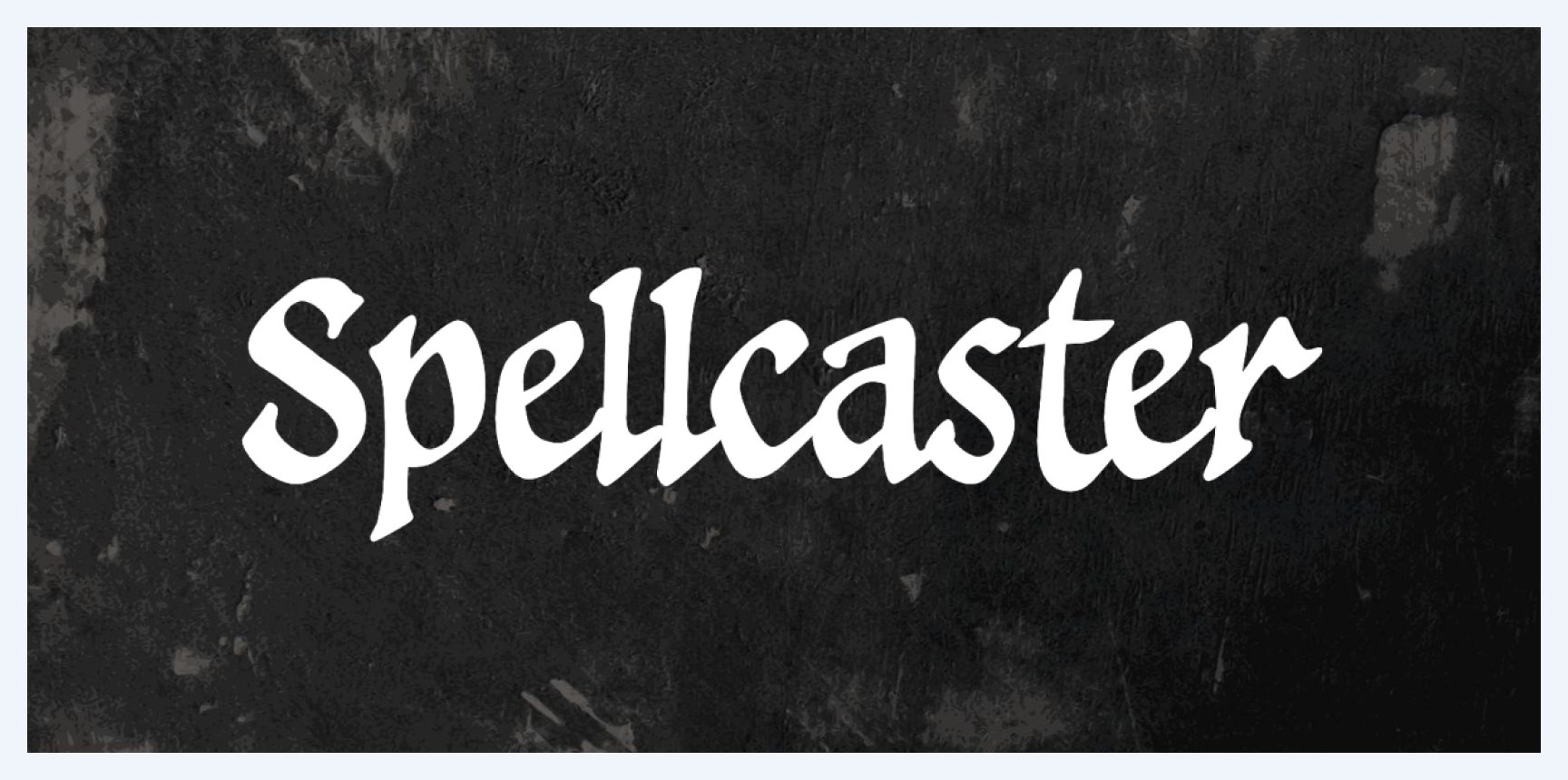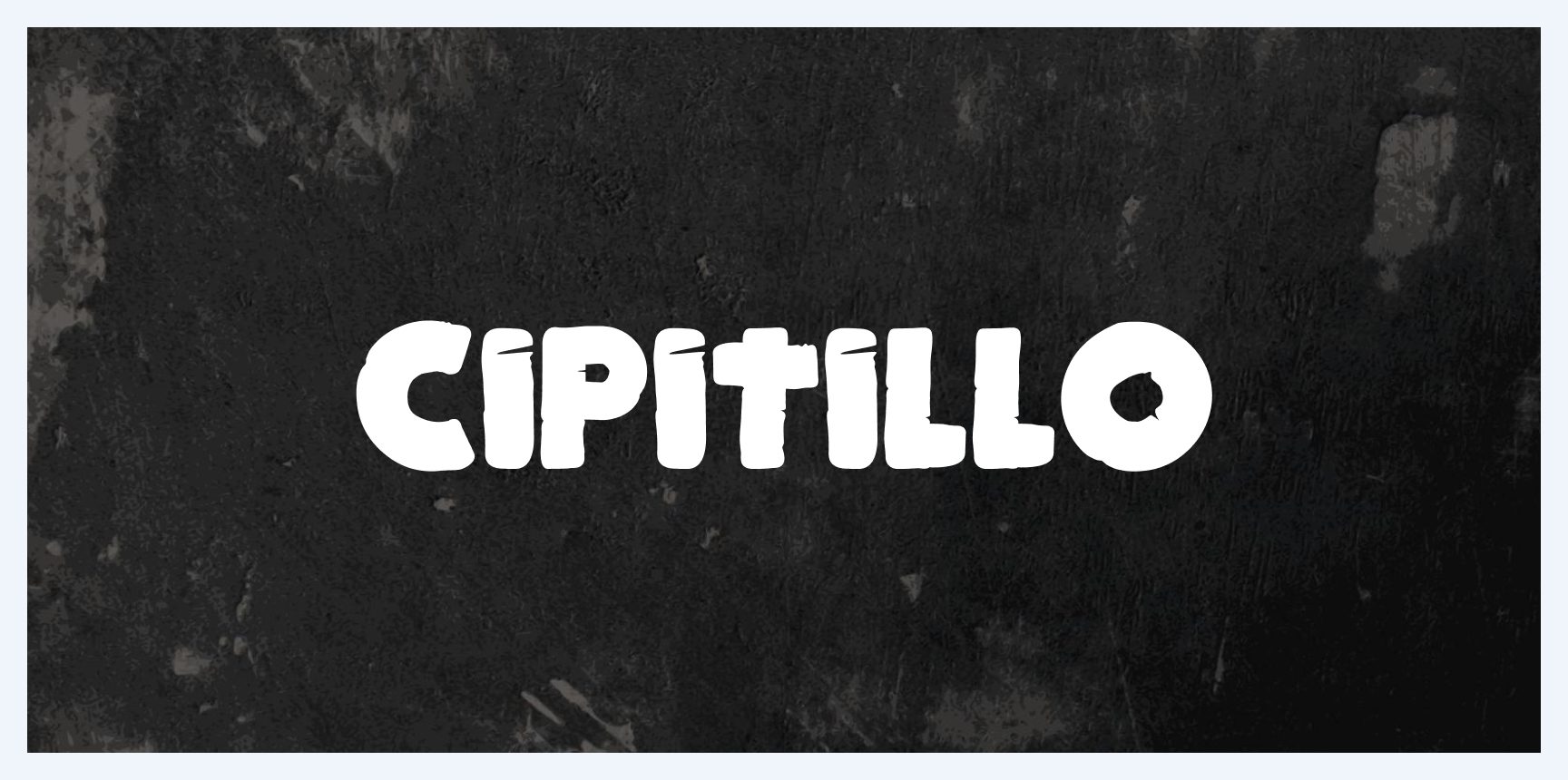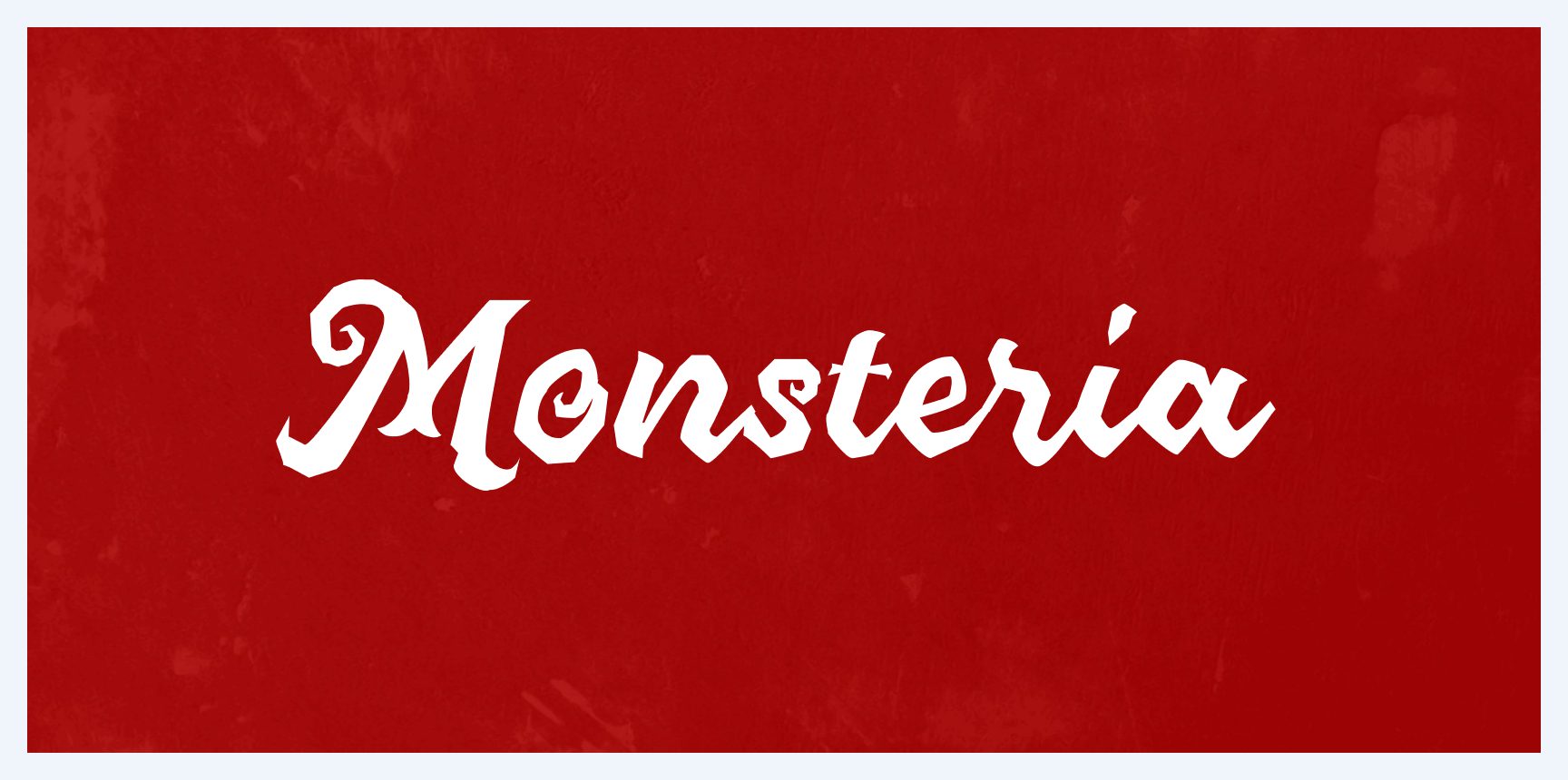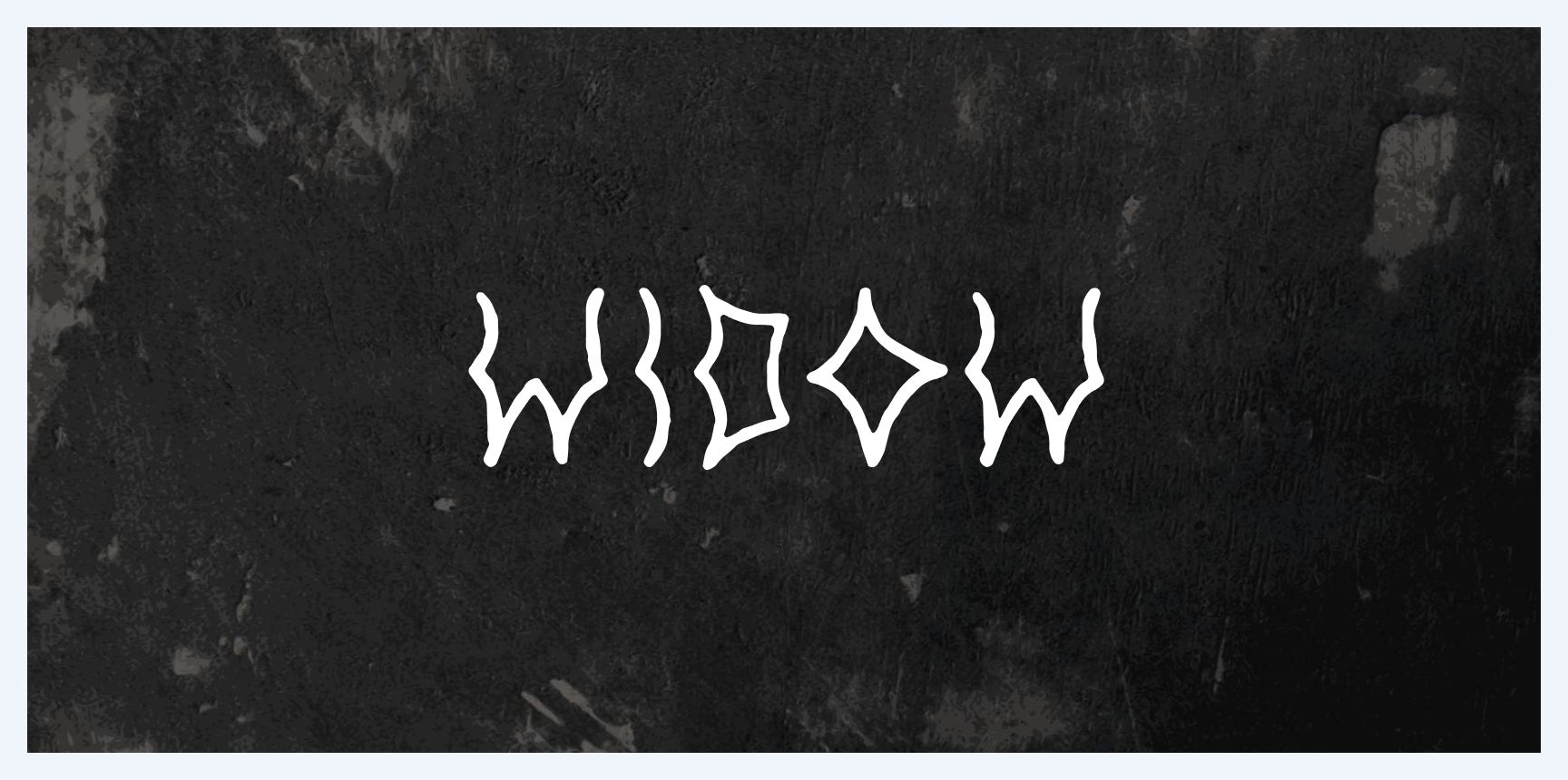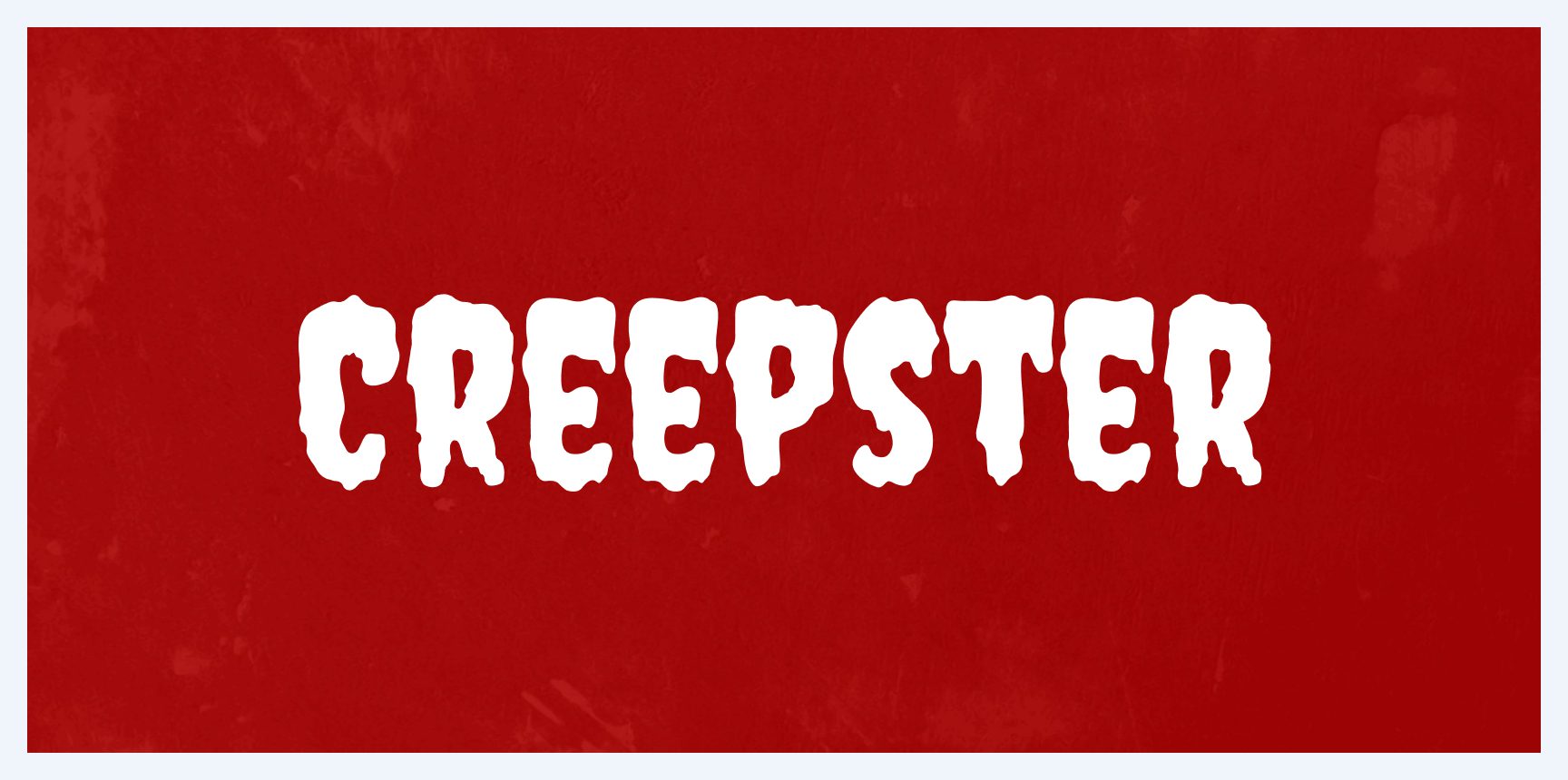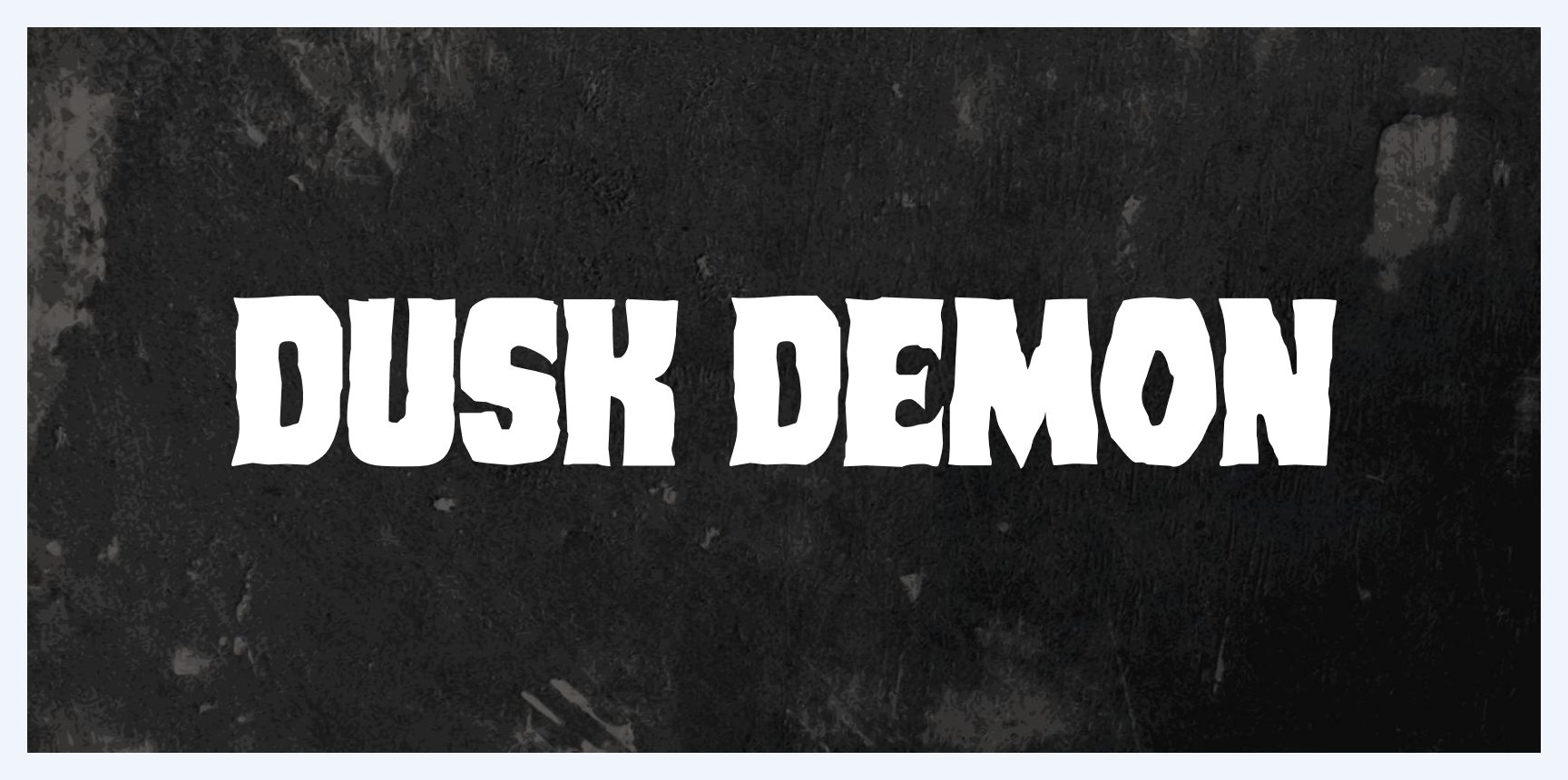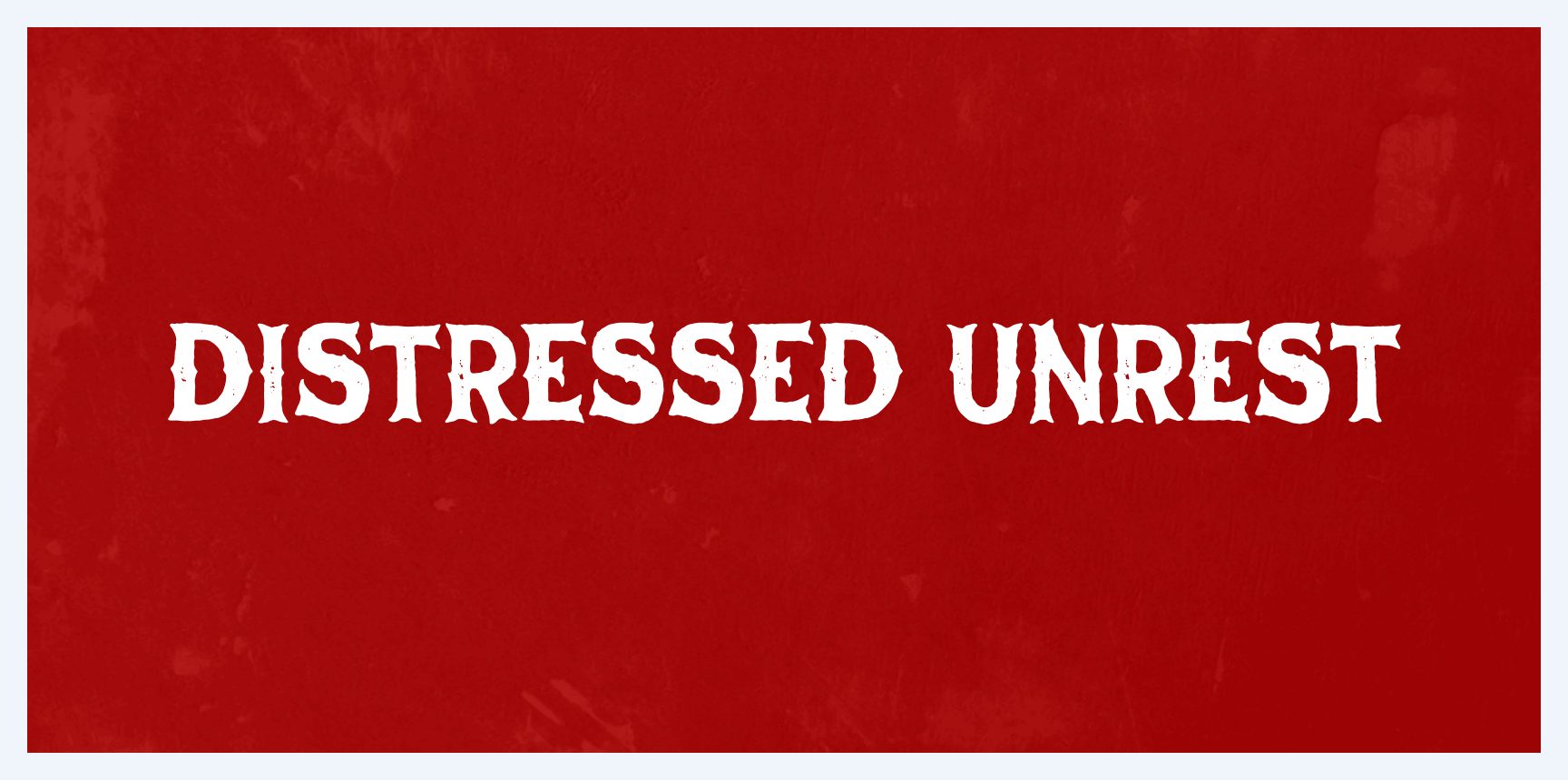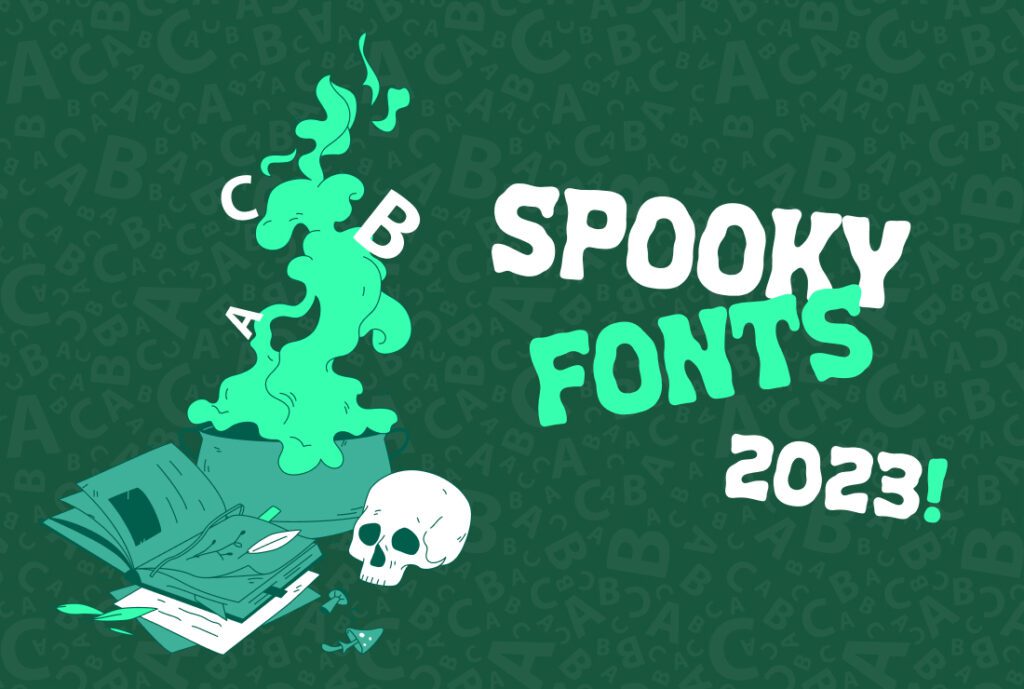
It’s that time of year again! Introducing our 2023 list of spooky fonts, curated and compiled by none other than Buckeye Innovation’s senior visual designer Tony. As the Halloween season approaches, he’s scoured the web to bring you a handpicked selection of fonts that will add an eerie, enigmatic, and thrilling touch to your design projects. From spine-tingling serifs to chilling scripts, these fonts are perfect for adding a ghoulishly good vibe to your Halloween posters, invitations, social media graphics, and more. Get ready to explore a world of fonts that will bring your Halloween designs to life with a dash of the macabre!
1. Wax Museum
Wax Museum
2. Spooky Treat
Spooky Treat
3. Spellcaster
Spellcaster
4. Scary and Spicy
Scary and Spicy
5. Cipitillo
Cipitillo
6. Monsteria
Monsteria
7. Widow
Widow
8. Creepster
Creepster
9. Dusk Demon
Dusk Demon
10. Distressed Unrest
Distressed Unrest